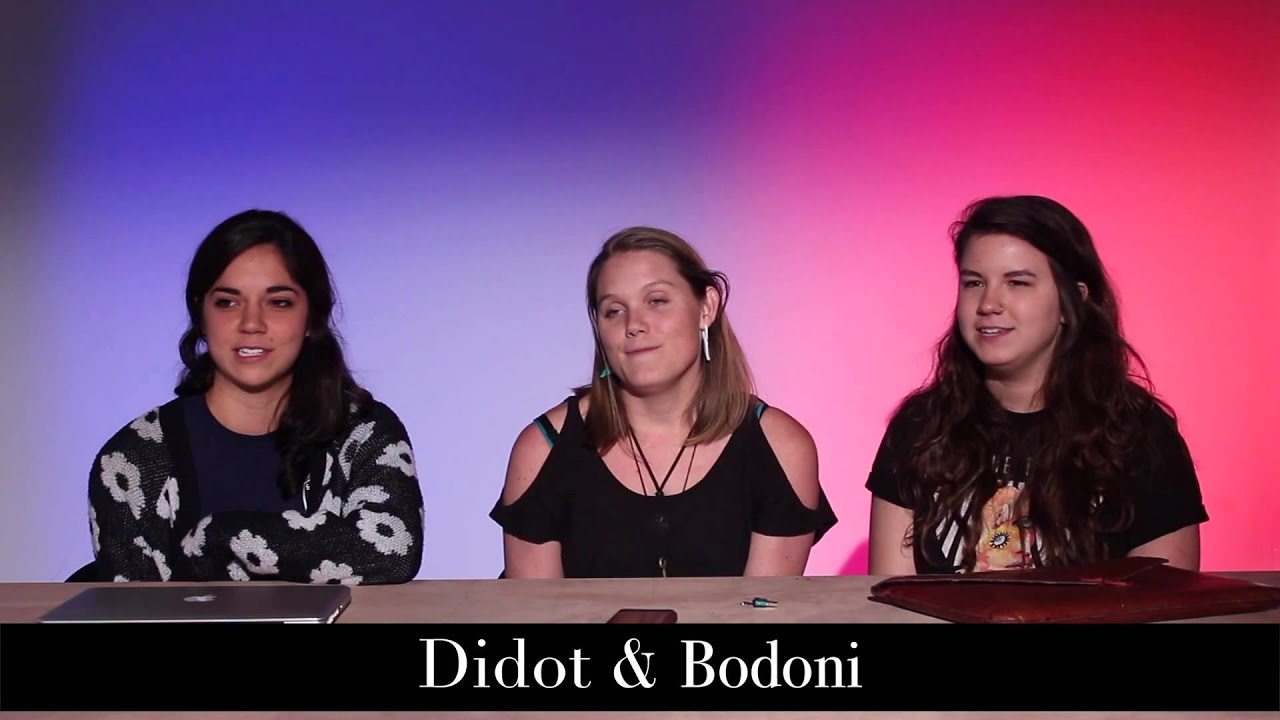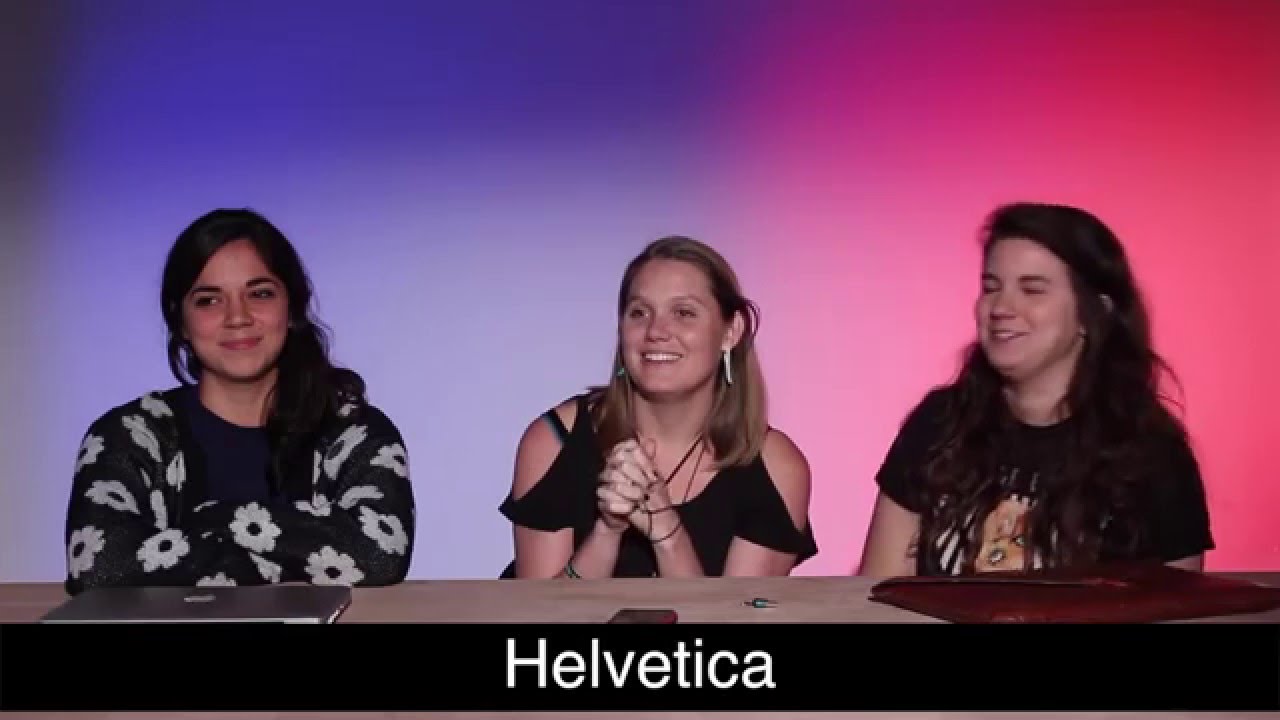
Students describe typefaces as people
Would you hang out with Comic Sans? These students describe what typefaces would be like as people.
You all have your favourite, go-to typeface – maybe you have a few, nestled there in your favourite fonts folder. Then there are some you can't stand – the ones you can't even believe were created in the first place, let alone still being used today.
Whilst you use these fonts every day, have you ever wondered what it would be like to hang out with them, as people? Probably not but it's a fun project that the graduating students of Texas State University did and the results are hilarious.